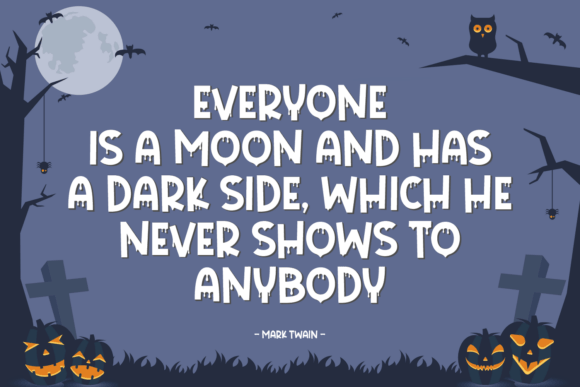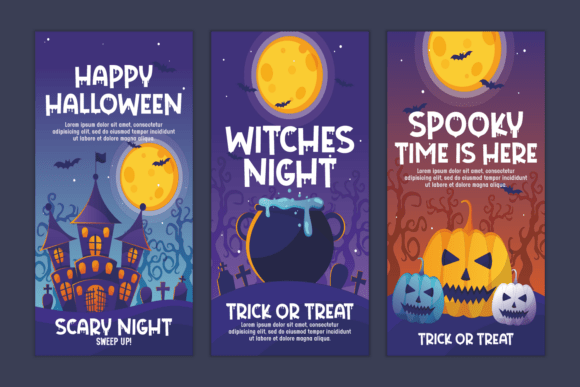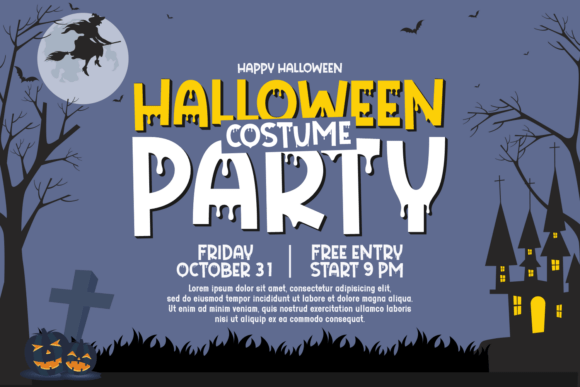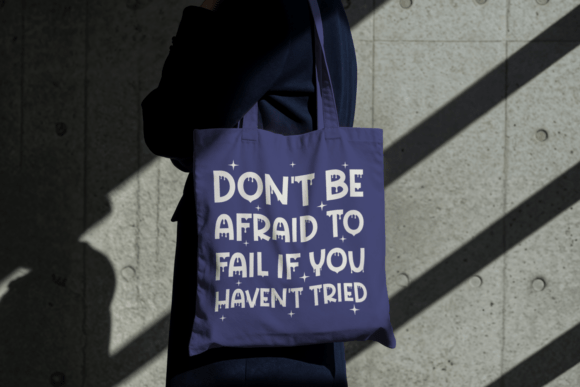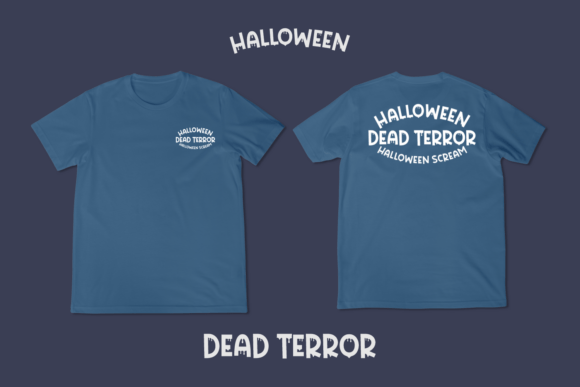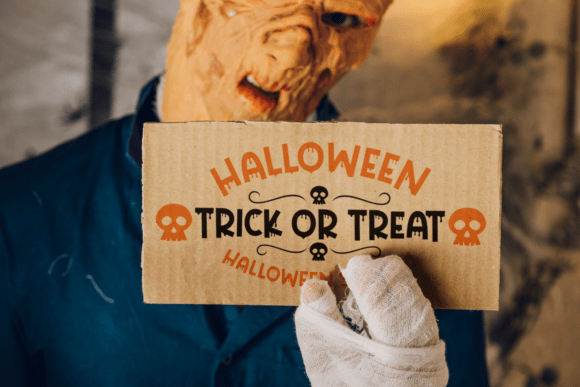
Introducing Ghoster Blebers Font: The Spookiest and Most Playful Halloween Display Font
Are you looking for a font that will add a spooky and playful touch to your Halloween projects? Look no further than Ghoster Blebers Font! This Halloween display font is designed to bring a fun haunted vibe to your designs, making it perfect for a wide range of applications, from Halloween parties and trick-or-treat invites to kids’ events and haunted house posters.
The Unique Characteristics of Ghoster Blebers Font
Ghoster Blebers Font features quirky letterforms with gooey drips and a hand-drawn feel, giving it a bold and friendly appearance that’s easy to read. The font’s playful and spooky design makes it ideal for adding a touch of Halloween character to your projects. Whether you’re designing for print or digital use, Ghoster Blebers Font is the perfect choice.
What Makes Ghoster Blebers Font So Versatile?
One of the things that sets Ghoster Blebers Font apart is its versatility. The font’s bold and playful design makes it perfect for a wide range of applications, including:
- Halloween parties: Create spooky and fun invitations, posters, and decorations with Ghoster Blebers Font.
- Trick-or-treat invites: Add a touch of Halloween character to your trick-or-treat invitations with this playful font.
- Kids’ events: Ghoster Blebers Font is perfect for kids’ Halloween parties, haunted houses, and other spooky events.
- Haunted house posters: Create eye-catching posters for haunted houses, haunted hayrides, and other spooky attractions.
- Creepy-cute designs: Add a touch of spooky charm to your designs with Ghoster Blebers Font.
The Benefits of Using Ghoster Blebers Font
There are many benefits to using Ghoster Blebers Font in your designs. Some of the advantages of this font include:
- Easy to read: Despite its playful and spooky design, Ghoster Blebers Font is easy to read, making it perfect for both print and digital use.
- Bold and friendly appearance: The font’s bold and friendly appearance makes it perfect for a wide range of applications, from Halloween parties to haunted house posters.
- Versatile: Ghoster Blebers Font is versatile and can be used for both print and digital projects.
- Unique and eye-catching: The font’s unique and eye-catching design makes it perfect for designers and crafters looking to add a touch of Halloween character to their projects.
Tips for Using Ghoster Blebers Font
Here are a few tips for using Ghoster Blebers Font in your designs:
- Use it for headlines: Ghoster Blebers Font is perfect for headlines and titles, where its bold and playful design can really make an impact.
- Pair it with other fonts: Consider pairing Ghoster Blebers Font with other fonts to create a unique and eye-catching design.
- Experiment with colors: Don’t be afraid to experiment with different colors and textures to add depth and interest to your designs.
- Have fun: Most importantly, have fun with Ghoster Blebers Font! The font’s playful and spooky design makes it perfect for adding a touch of Halloween character to your projects.
In conclusion, Ghoster Blebers Font is a spooky and playful Halloween display font that’s perfect for designers and crafters looking to add a touch of Halloween character to their projects. With its quirky letterforms, gooey drips, and hand-drawn feel, this font is sure to make your designs stand out like a ghost on a foggy night! So why wait? Download Ghoster Blebers Font today and start creating your own spooky and fun Halloween designs!